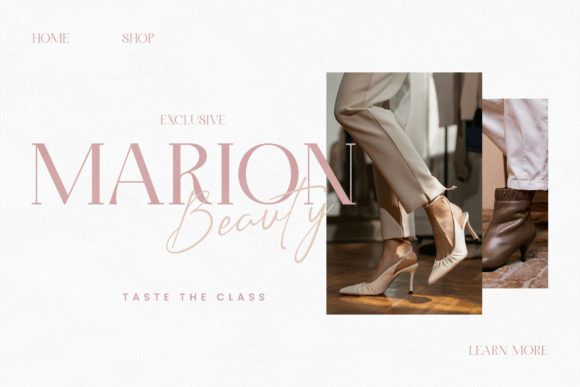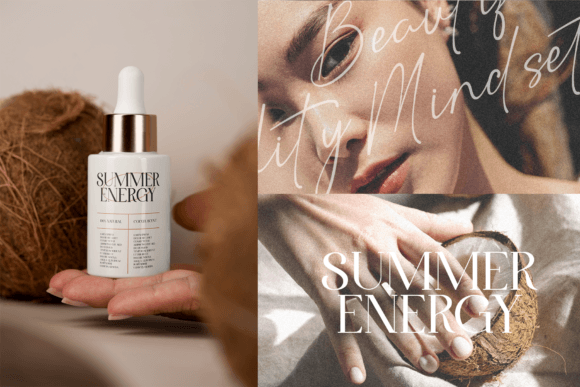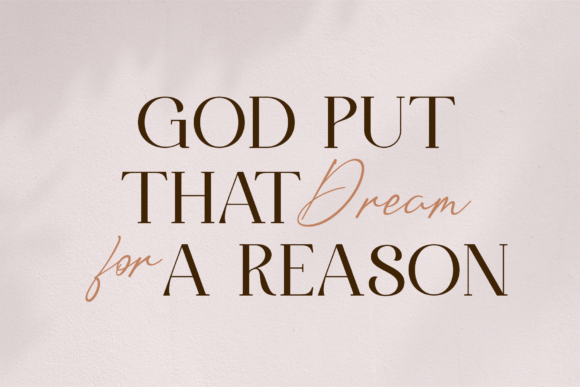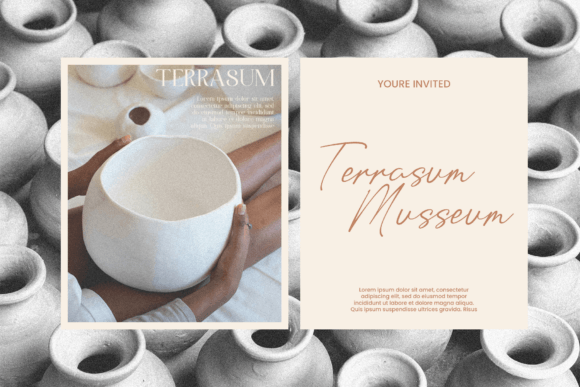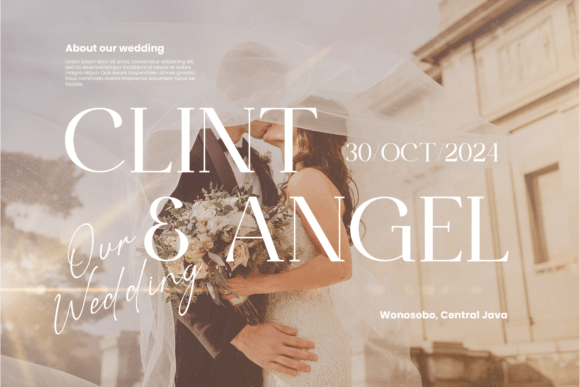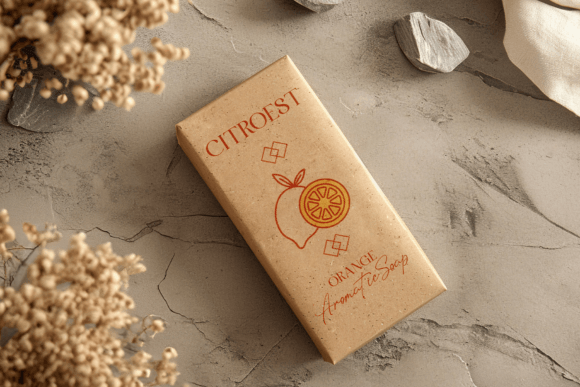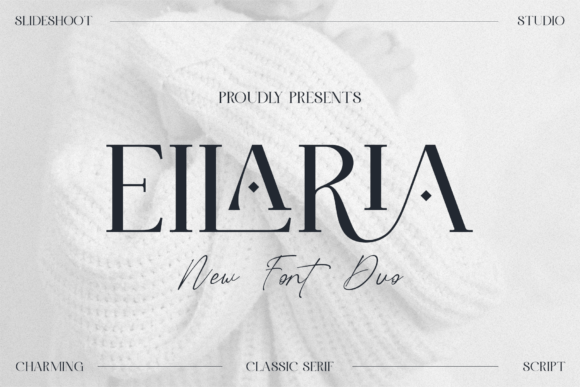
Eilaria Font: Elevate Your Designs with Elegance and Sophistication
In the world of typography, fonts play a crucial role in conveying the tone and personality of a design. For designers and crafters seeking to add a touch of class and sophistication to their projects, Eilaria Font is an excellent choice. This stunning duo font combines modern serifs and scripts, making it perfect for creating visually appealing designs that exude elegance and refinement.
What is Eilaria Font?
Eilaria Font is a carefully crafted duo font that consists of two complementary fonts: a modern serif and a beautiful script. This pairing allows designers to create stunning title pages, logos, brand identities, magazine layouts, product packaging, and invitations that showcase their creativity and attention to detail. The font’s clean lines, smooth curves, and classic touch make it an ideal choice for those seeking to add a level of sophistication to their designs.
Key Features of Eilaria Font
Eilaria Font boasts several key features that make it a standout choice for designers and crafters:
- Elegant and Stylish: Eilaria Font’s modern serifs and scripts are designed to add a touch of elegance and style to any project.
- Classy and Refined: The font’s classic touch and clean lines make it perfect for creating sophisticated designs that exude refinement.
- Versatile: Eilaria Font can be used for a wide range of design projects, including titles, logos, brands, magazines, product packaging, and invitations.
- Modern and Fresh: The font’s modern serifs and scripts give it a fresh and contemporary feel that’s perfect for designers seeking to create modern designs.
Use Cases for Eilaria Font
Eilaria Font is a versatile font that can be used for a variety of design projects, including:
- Title Pages: Create stunning title pages for books, magazines, and reports with Eilaria Font’s elegant serifs and scripts.
- Logos and Brand Identities: Use Eilaria Font to create sophisticated logos and brand identities that reflect your company’s values and personality.
- Magazine Layouts: Add a touch of elegance to your magazine layouts with Eilaria Font’s modern serifs and scripts.
- Product Packaging: Create eye-catching product packaging with Eilaria Font’s stylish and refined typography.
- Invitations: Use Eilaria Font to create beautiful and elegant invitations for special occasions.
Why Choose Eilaria Font?
With so many fonts available, why choose Eilaria Font? Here are just a few reasons:
- Unique and Distinctive: Eilaria Font’s modern serifs and scripts make it a unique and distinctive font that’s sure to stand out in any design.
- High-Quality Typography: Eilaria Font is designed with high-quality typography in mind, ensuring that your designs look professional and polished.
- Easy to Read: The font’s clean lines and smooth curves make it easy to read, even at small sizes.
- Customizable: Eilaria Font can be customized to fit your design needs, allowing you to create unique and personalized designs.
Eilaria Font is a stunning duo font that offers designers and crafters a unique and elegant solution for their design needs. With its modern serifs and scripts, clean lines, and smooth curves, Eilaria Font is perfect for creating sophisticated designs that exude elegance and refinement. Whether you’re designing title pages, logos, brand identities, magazine layouts, product packaging, or invitations, Eilaria Font is an excellent choice. So why wait? Download Eilaria Font today and elevate your designs to new heights!